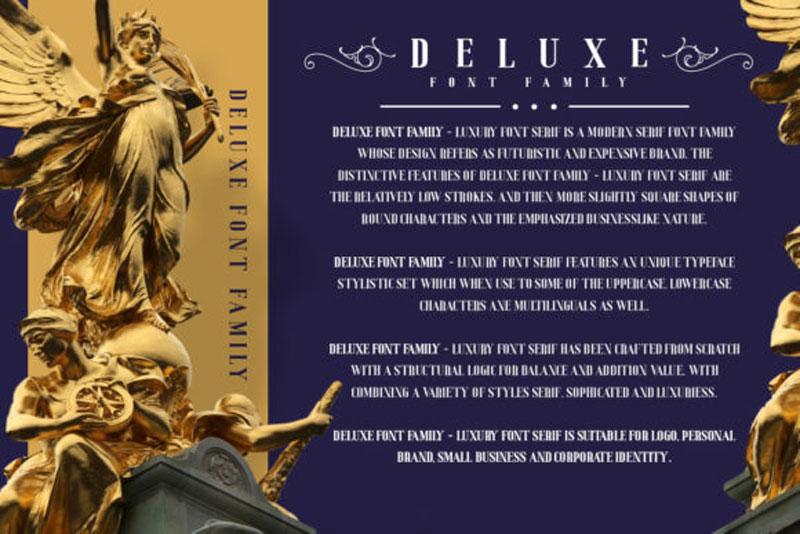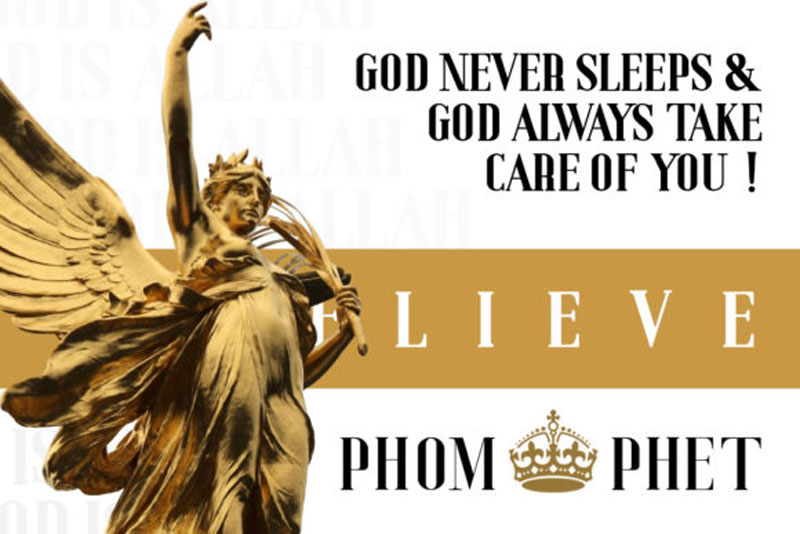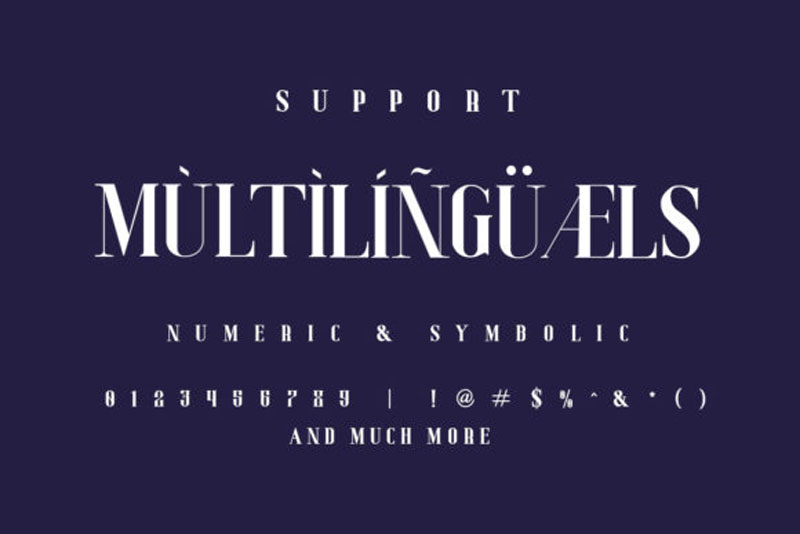
Deluxe Font
Deluxe is a simple and casual serif font with an undeniably clean feel. With its neat and beautiful arrangement of letters, this typeface will look outstanding in both formal and non-formal designs. Also checkout Monkerti Font.